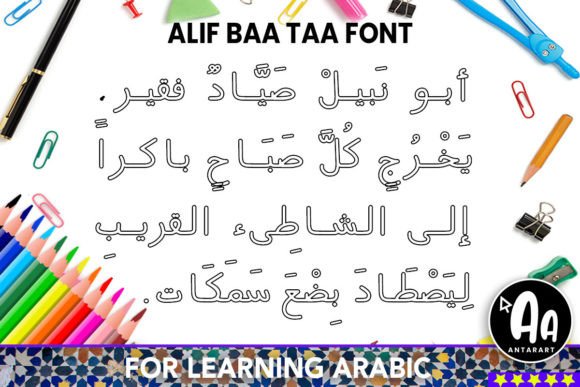
Unlocking the Secrets of the Arabic Alphabet
As I sat in my cozy study, surrounded by sheets of paper and a scattered array of pens, I stumbled upon a creative moment that sparked a new passion for teaching and learning Arabic. The intricate strokes and elegant curves of the Arabic script danced across the page, beckoning me to explore the beauty of this ancient language. It was then that I discovered the Alif Baa Taa Outlined Font, a game-changing resource that has since become an indispensable tool in my Arabic teaching journey.
The Alif Baa Taa Outlined Font is a beautifully crafted handwritten font that makes it easy to create engaging Arabic worksheets and educational materials using any software. Whether you’re a teacher, student, or simply a design enthusiast, this font is a valuable asset that can elevate your Arabic language learning experience.
Alif Baa Taa Outlined Font Key Features
- Font Family: Alif Baa Taa Outlined, a unique and elegant font designed for Arabic typesetting.
- Unicode Support: Covers a wide range of Unicode characters, including Arabic, Persian, and Urdu scripts, making it a versatile choice for multilingual typesetting.
- Outlining Feature: The font’s unique outlined design provides a distinctive aesthetic, adding depth and visual interest to text.
Alif Baa Taa Outlined Font Review
I’ve had the chance to work with the Alif Baa Taa Outlined Font, and I must say it’s a beautiful addition to any project. Here are some of the things that stood out to me:
- ✨ Unique design: The Alif Baa Taa Outlined Font has a distinctive look that sets it apart from more common fonts. It’s perfect for projects that need a touch of elegance and sophistication.
- ✨ Versatility: This font works well in both digital and print formats, making it a great choice for a wide range of applications.
- ✨ High-quality glyphs: The font includes a wide range of glyphs, including Arabic, Latin, and other languages, ensuring that you can use it in any context.
- ⚠️ Limited font weights: While the font has a unique look, it’s available in only a few weights, which may limit its use in certain applications.
- ⚠️ No italic or bold options: If you need to emphasize certain text, you may find yourself limited by the lack of italic or bold options.
Overall, I’m impressed with the Alif Baa Taa Outlined Font. It’s a beautiful, versatile font that’s perfect for projects that need a touch of elegance. While it has some limitations, it’s still a great choice for designers looking for something unique and high-quality.
The Alif Baa Taa Outlined Font is ideal for:
- Creating elegant and sophisticated headings and titles.
- Adding a touch of Middle Eastern or Islamic flair to your design.
- Designing invitations, business cards, and other stationery items.